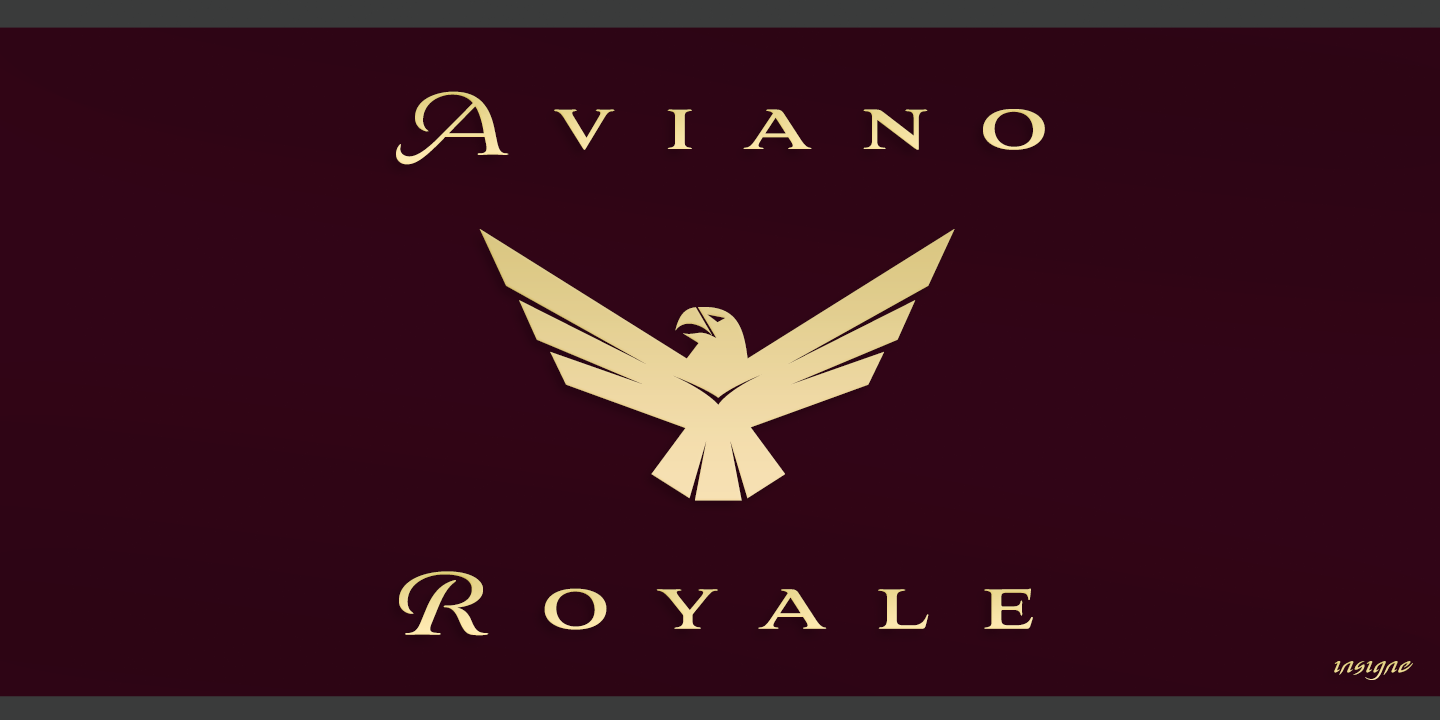
Aviano Royale Font Free Download is a luxurious, high-contrast serif typeface that exudes sophistication and elegance. Perfect for branding, logos, packaging, wedding invitations, editorial design, and high-end marketing materials, this font adds a regal, timeless quality to your creative projects. With its sharp serifs and refined letterforms, Aviano Royale Font brings a sense of grandeur and professionalism to any design.
With Aviano Royale Font Free Download, you’ll receive a complete set of uppercase letters, numbers, and essential punctuation, offering flexibility for both print and digital applications. Whether you’re crafting luxury product labels, creating magazine headlines, or designing upscale event materials, this font ensures readability while adding an elevated, polished aesthetic.
Elevate your design projects with Aviano Royale Font Free Download. Its sophisticated, high-end style makes it the perfect choice for visuals that demand elegance, authority, and timeless beauty.